As someone who’s spent countless hours studying typography and working with tattoo artists, I can tell you that choosing the right cursive font for your tattoo is absolutely crucial. The difference between a stunning piece of body art and something you’ll regret? Often, it comes down to the font.
Cursive tattoo fonts have this incredible ability to transform simple words into flowing works of art. Whether you’re inking a meaningful quote, a loved one’s name, or a personal mantra, the right cursive font can elevate your tattoo from ordinary to extraordinary.
In this comprehensive guide, we’ll explore the world of cursive tattoo fonts – from elegant scripts that whisper sophistication to bold statements that demand attention. I’ll share insider tips on choosing fonts that age well, work beautifully with your tattoo artist’s style, and capture exactly the vibe you’re going for.
So grab your favorite beverage, settle in, and let’s dive into the flowing, graceful world of cursive tattoo fonts!
The Most Stunning Cursive Tattoo Fonts of 2026
Not all cursive fonts translate well to skin – trust me on this. After analyzing hundreds of options and consulting with top tattoo artists, here are my picks for the absolute best cursive tattoo fonts that actually work in practice:
Mongtar
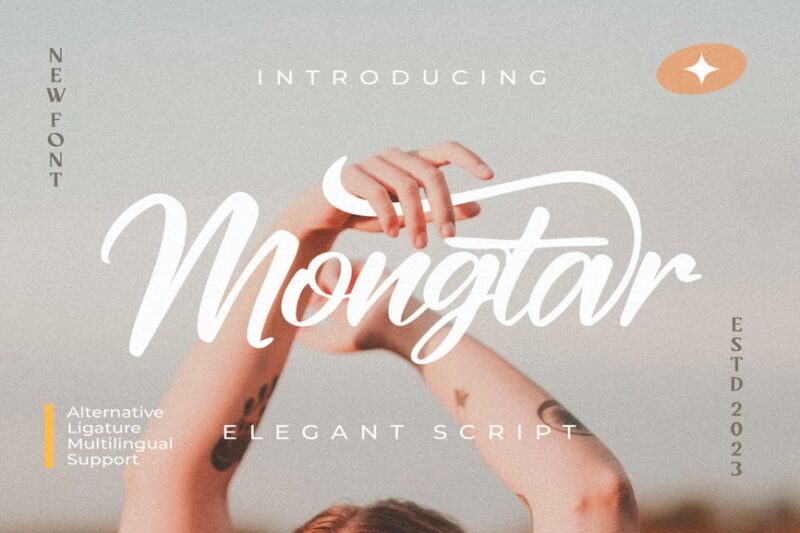
Mongtar is a versatile script handwritten font that combines elegance with a natural handwriting feel. It offers a perfect balance between casual and refined, making it suitable for both personal and professional design projects.
Brooklyn Script
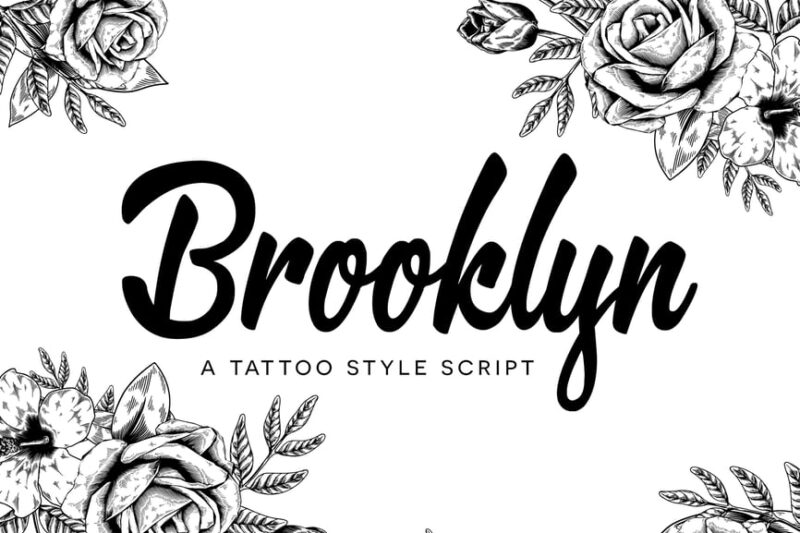
Brooklyn Script is a charming handwritten font that captures the essence of personal signatures. Its fluid strokes and natural flow make it ideal for creating authentic, personalized designs with a touch of urban sophistication.
Holiday Romance Beautiful Cursive Font Script
This beautiful cursive font exudes romance and elegance, perfect for holiday-themed designs. Its flowing script and delicate curves evoke a sense of warmth and sentimentality, ideal for invitations, greeting cards, and love-themed projects.
Camella
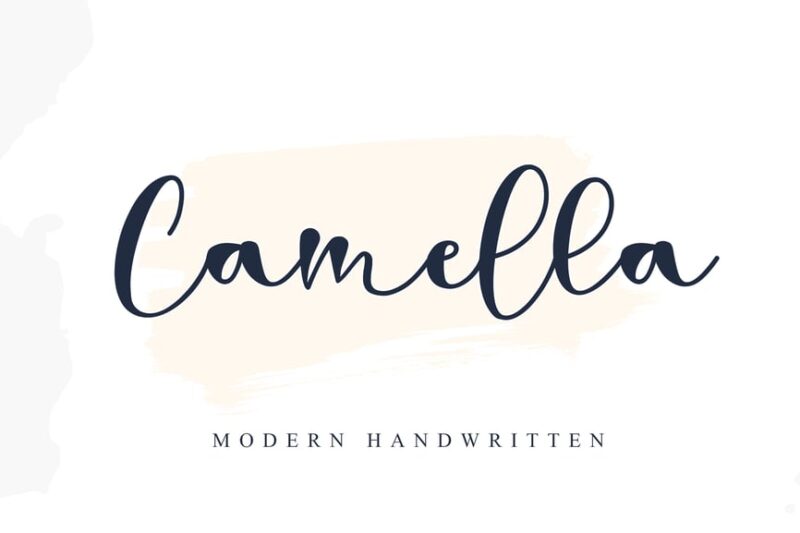
Camella is a fancy cursive font that brings a touch of sophistication to any design. Its graceful curves and ornate details make it perfect for high-end branding, wedding stationery, and elegant packaging designs.
Cailyn Bloom
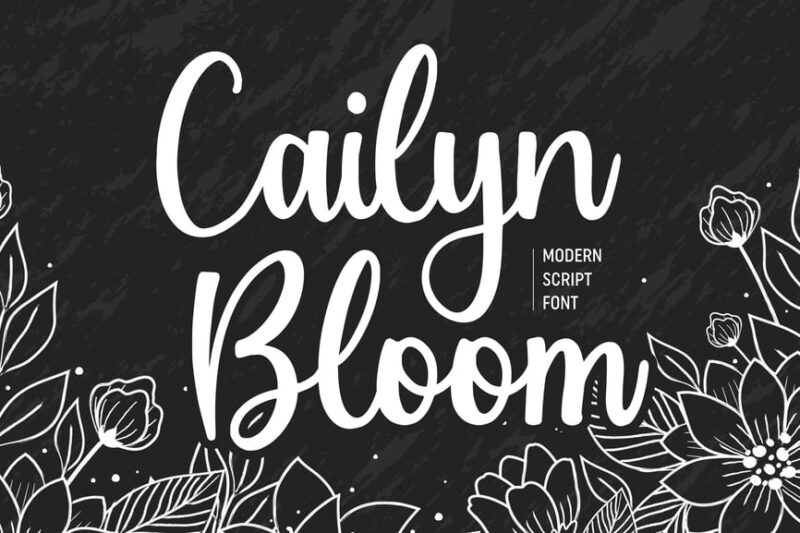
Cailyn Bloom is a modern script font designed specifically for logos. Its clean lines and balanced proportions make it highly legible while maintaining a handwritten charm, perfect for creating memorable brand identities.
Blessed
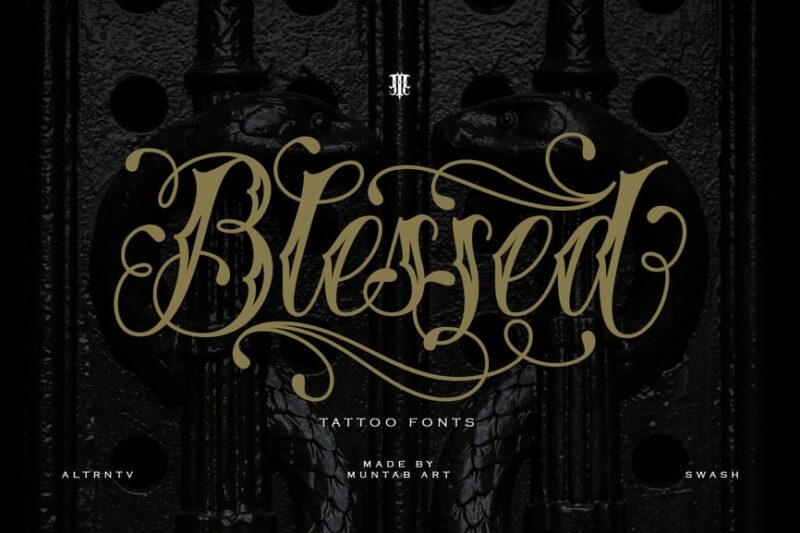
Blessed is a traditional tattoo font that captures the essence of Chicano-style lettering. Its bold strokes and distinctive character make it ideal for tattoo designs, street art, and projects requiring a strong, edgy aesthetic.
Boneflower
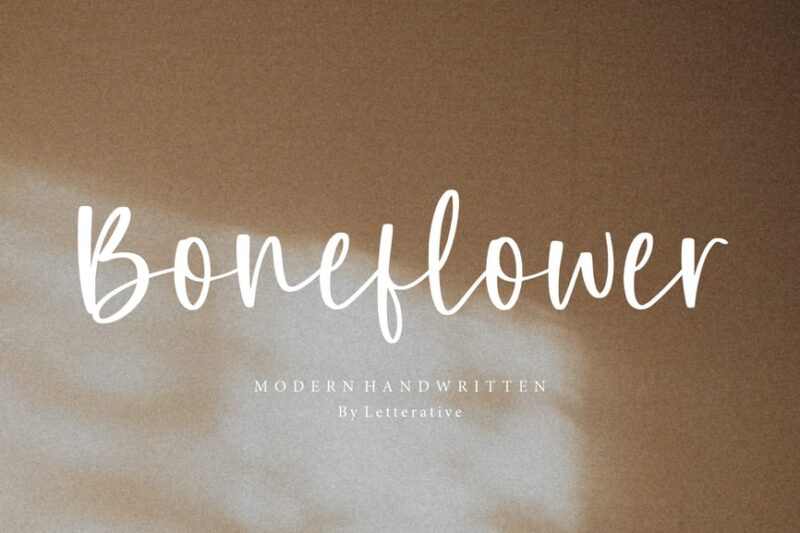
Boneflower is a modern handwritten font designed for creating unique logos. Its organic, flowing lines give it a natural feel, while its contemporary style ensures it stands out in branding and digital design projects.
Aiushtya
Aiushtya is a handwriting script font with Indian and Gujarati influences. Its distinctive character shapes and flowing style make it perfect for projects requiring an authentic South Asian feel or cultural designs.
Maldito Font
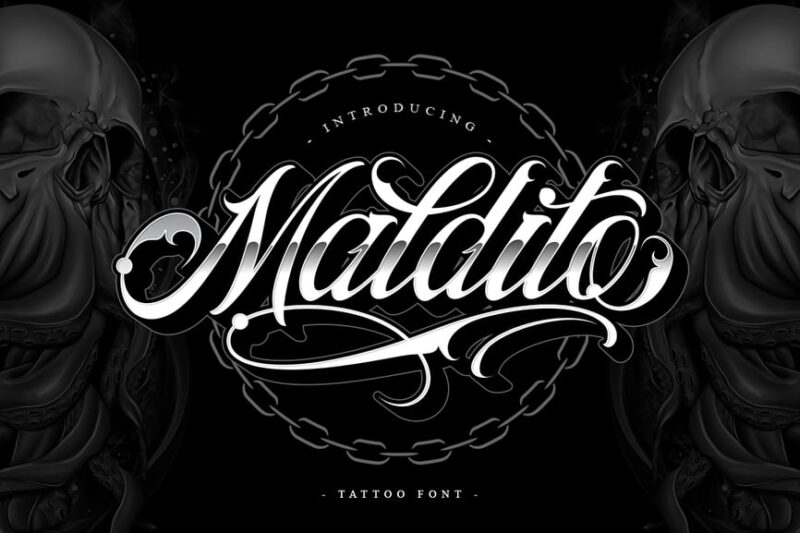
Maldito is a bold tattoo-style font with Mexican and hip-hop influences. Its strong, decorative characters and symbolic elements make it ideal for creating impactful designs in street art, urban fashion, and music-related projects.
Dartcha
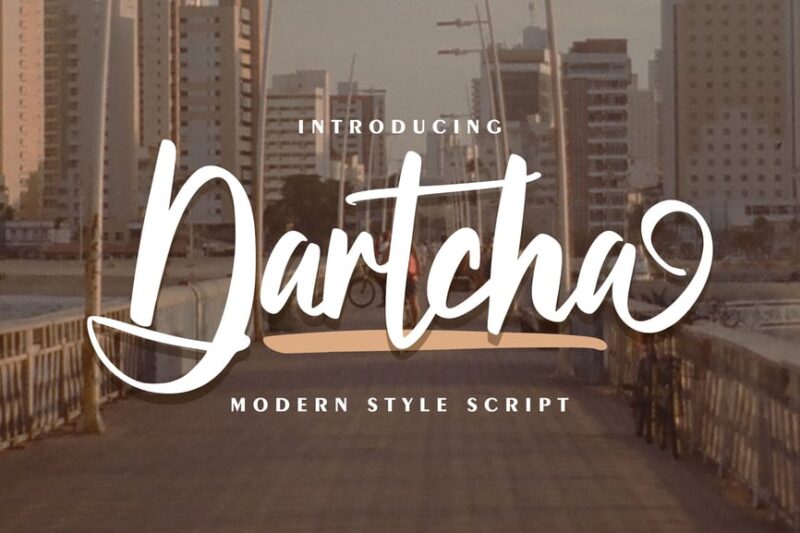
Dartcha is a modern style script font that combines elegance with contemporary flair. Its smooth curves and balanced proportions make it versatile for various design applications, from branding to editorial layouts.
Sofia Carolyn
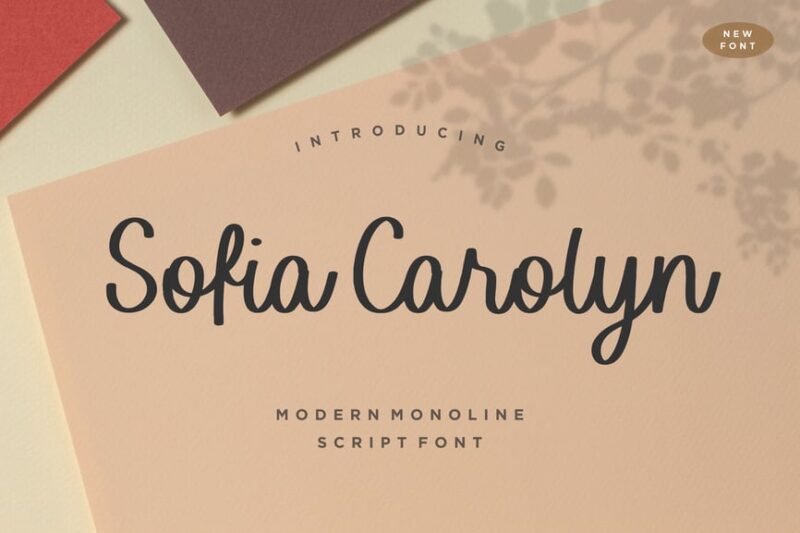
Sofia Carolyn is a modern monoline script font that offers a clean, minimalist handwritten style. Its consistent line weight and smooth connections make it highly legible and perfect for logos, packaging, and digital designs.
Belymon Script
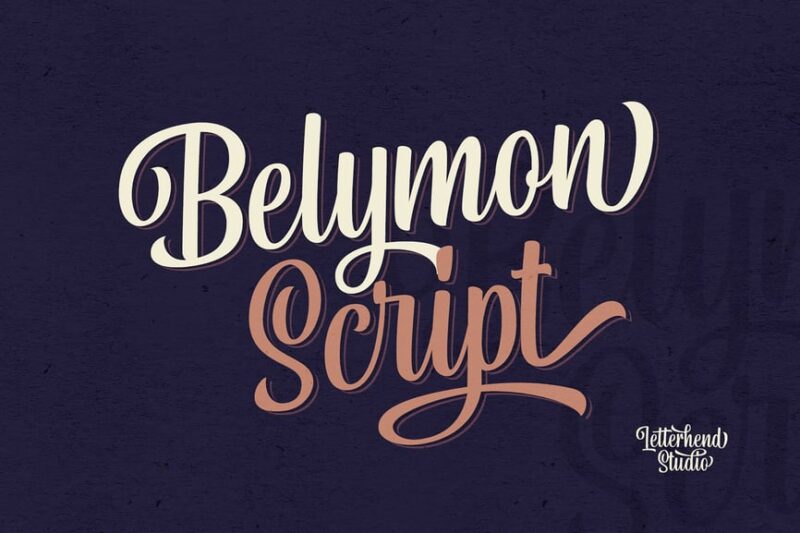
Belymon Script is a brush script font with a touch of Hollywood glamour. Its bold, sweeping strokes and dynamic character make it ideal for creating eye-catching headlines, posters, and branding materials with a classic yet modern appeal.
Leuthique
Leuthique is an elegant handwriting script font that exudes sophistication. Its refined curves and graceful ligatures make it perfect for high-end branding, wedding invitations, and luxury product packaging.
Your tattoo is going to be with you for life – make sure every curve, every flourish, and every letter is exactly what you’ve dreamed of. Because when you get it right, a cursive tattoo doesn’t just say something – it sings it.